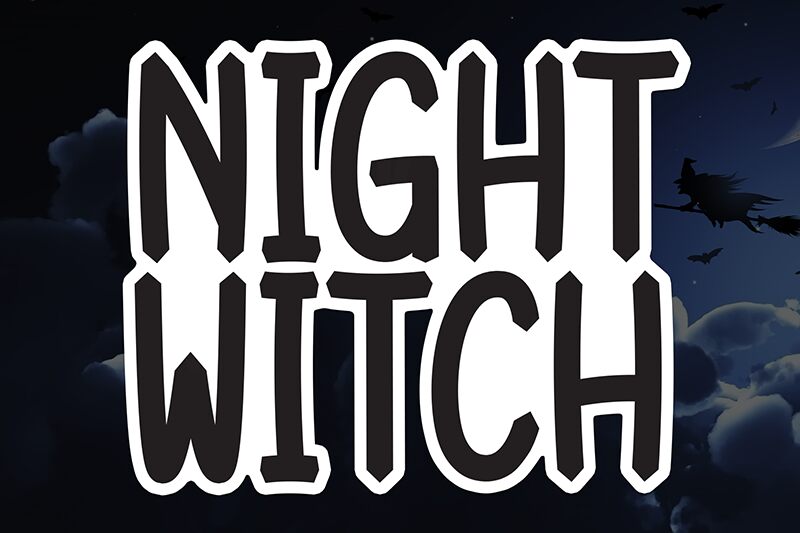
Night Witch
Night Witch font by Scratchones is a free Halloween display font that bottles up a friendly fright. Its chunky, hand‑brushed letters look inky and slightly uneven, with soft edges and a subtle wobble that reads spooky without turning gory. The rhythm is bold and tightly packed, so headlines feel loud and immediate—like a sign slapped on the door just before dusk.
Using Night Witch, your Halloween party posters, treat bag labels, haunted house flyers, seasonal social posts, stickers, and streaming thumbnails will grab attention fast. This free font shines at large sizes; keep body copy in a simple, clean sans to let the brushy texture breathe. Scale the title big, add a little tracking, and let the mischief do the rest.